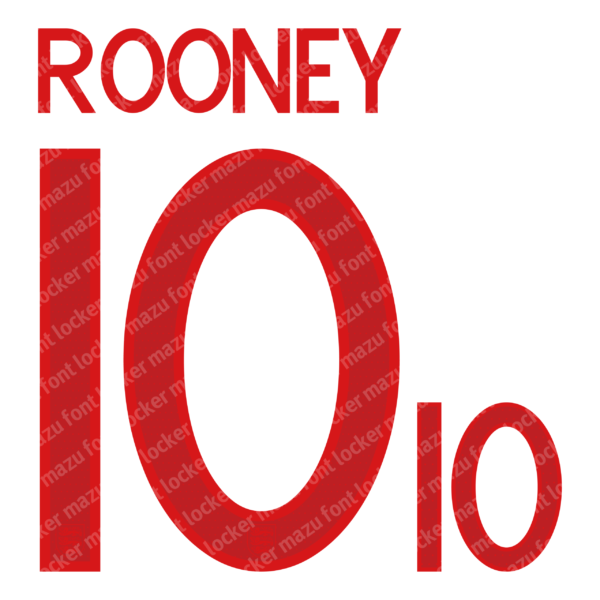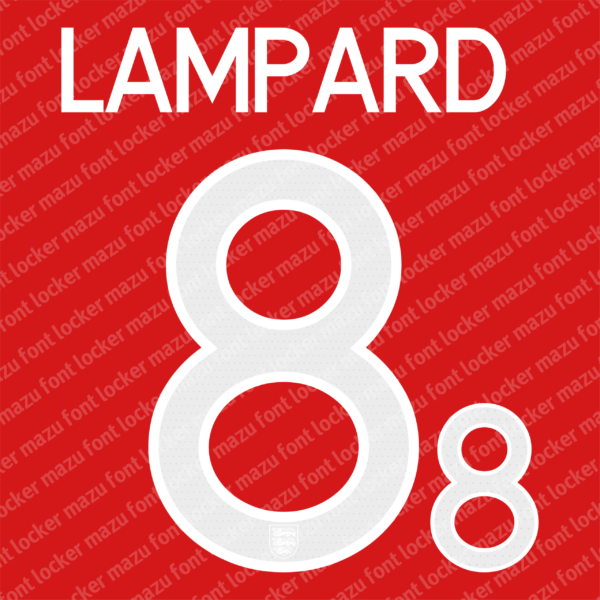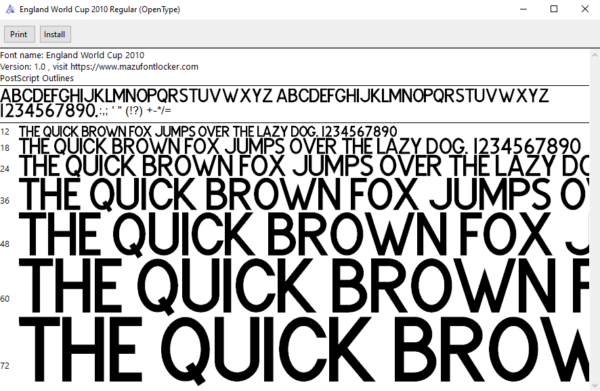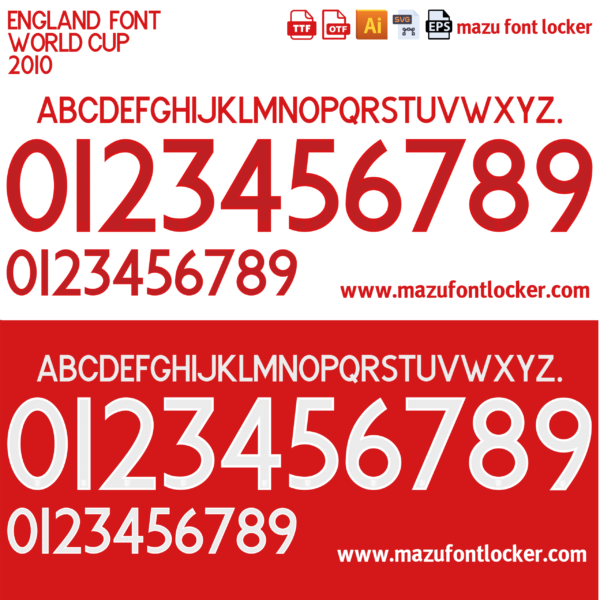
England World Cup 2010 Font Vector – Epic Three Lions Masterpiece
Download England World Cup 2010 Font now and unleash the roaring pride of the Three Lions straight into your designs. This premium vector font perfectly captures the bold, heroic, and electrifying identity of England during their unforgettable 2010 World Cup campaign. Every letter and number is crafted with razor-sharp precision, powerful contours, and majestic details that reflect the passion, determination, and fighting spirit of the national team.
Whether you’re creating matchday posters, fan merchandise, custom jerseys, social media graphics, t-shirts, wall art, or premium digital projects, this England World Cup 2010 Font delivers professional quality with stunning vibrancy and maximum impact. The font masterfully combines modern strength with the authentic white and red identity of England, making every headline pulse with true Three Lions pride and intensity.
Elevate your projects with authentic England DNA and let your creativity roar like the fans at the Royal Bafokeng Stadium.
England World Cup 2010 Font Vector
The England World Cup 2010 Font is a premium, high-precision football jersey font vector meticulously engineered to capture the fearless energy, explosive passion, and electrifying identity of England’s heroic 2010 World Cup campaign.
Inspired by the mighty Three Lions and their iconic, high-intensity performances throughout the unforgettable 2010 World Cup journey, this font unleashes a bold, majestic, and devastatingly powerful presence that radiates unbreakable England pride, rich heritage, and unstoppable fighting spirit. Every letter and number has been painstakingly recreated with razor-sharp precision to embody the vibrant white and red identity, relentless warrior mentality, and glorious legacy that makes England one of the most passionate and iconic forces in world football.
Feel the fire of the Royal Bafokeng Stadium. Ignite the passion. Unleash the legendary spirit of the Three Lions and the unstoppable power of England World Cup 2010.
🔥 England World Cup 2010 Font Features
• Authentic World Cup 2010 England jersey lettering style
The authentic lettering style helps recreate the classic look of the England World Cup 2010 kit with professional accuracy.
Unlike generic jersey fonts, this set is designed with a strong focus on authenticity and accuracy. Every detail is based on the original match lettering style used during the World Cup 2010, helping designers and collectors create realistic football shirt designs.
This England World Cup 2010 font vector set is designed for authentic football jersey customization and works perfectly for retro football projects, collector designs, and professional sportswear artwork.